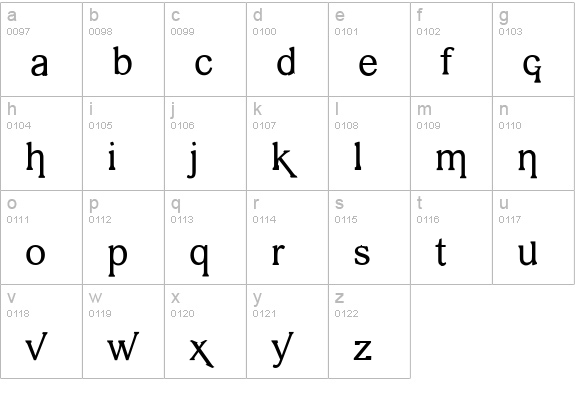
vengeance Font Details
Introducing Vengeance Font, where power meets elegance and intensity embraces sophistication. This mesmerizing typeface was meticulously crafted to captivate and enthrall, leaving an indelible mark on any project it graces. With its bold and commanding presence, it exudes an air of authority and determination, making a statement that demands attention. Designed to ignite the fire within, Vengeance Font seamlessly blends sharp edges with sleek curves, creating a harmonious balance that symbolizes the pursuit of justice. Each letter is meticulously crafted, ensuring a flawless display of strength and resilience. As you gaze upon its intricate details, you can almost feel the burning desire for retribution emanating from every stroke. But here's the best part: Vengeance Font is not only a font of power, it is also freely available to download at FontsMarket.com. Yes, you read that right! This remarkable font can be yours at no cost, allowing you to unleash its full potential without breaking the bank. Whether you're designing a logo that demands respect, creating a movie poster that conveys the intensity of a thrilling storyline, or simply adding a touch of vengeance to your personal projects, this font is the perfect choice. Its versatility ensures that it can adapt to any creative endeavor, infusing them with the spirit of revenge and determination. Don't miss out on this incredible opportunity to elevate your design game. Download Vengeance Font now, exclusively at FontsMarket.com, and experience the power of free expression at your fingertips. Unleash the fury, embrace the passion, and let Vengeance Font be your ally in the pursuit of design greatness.